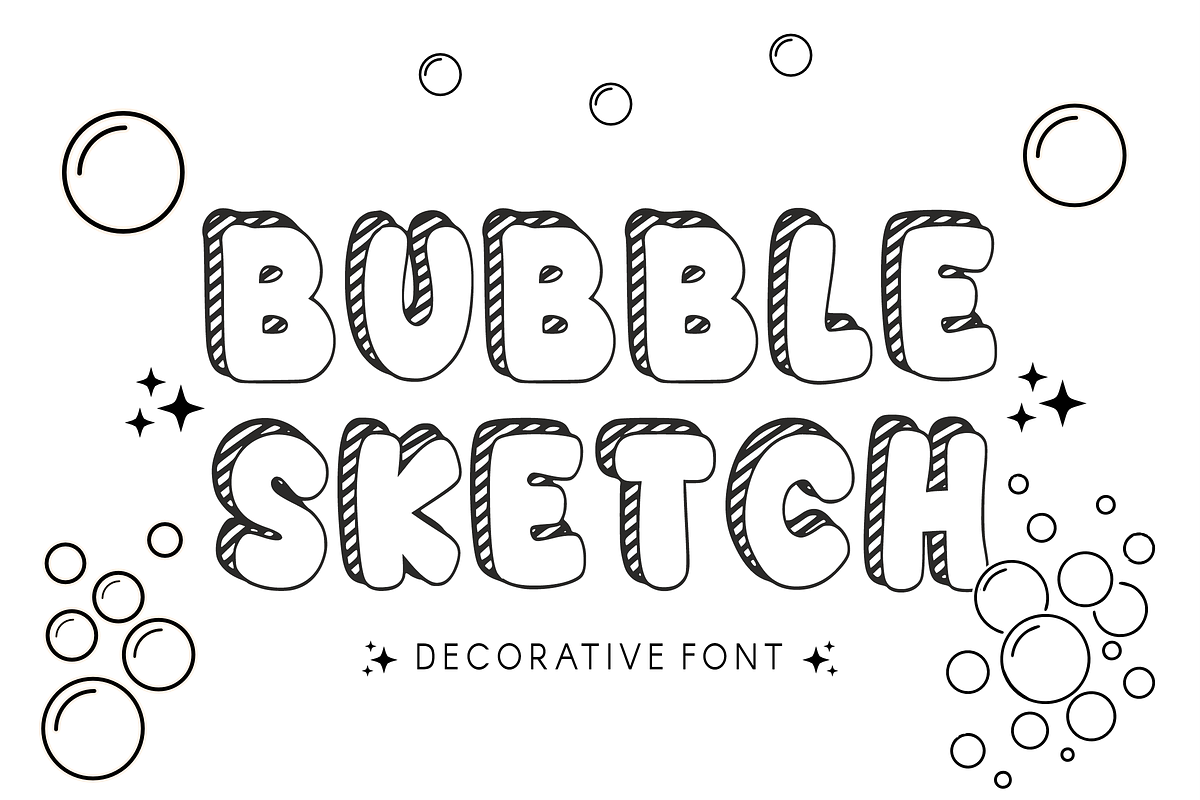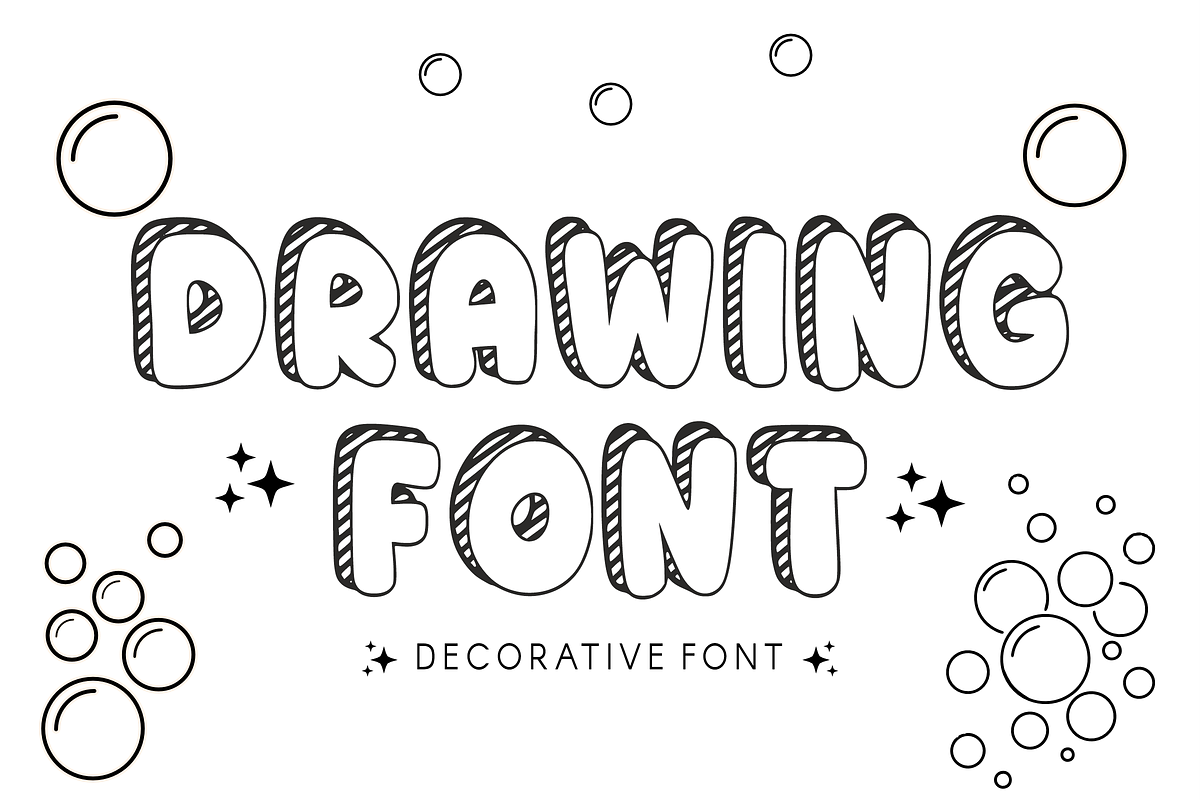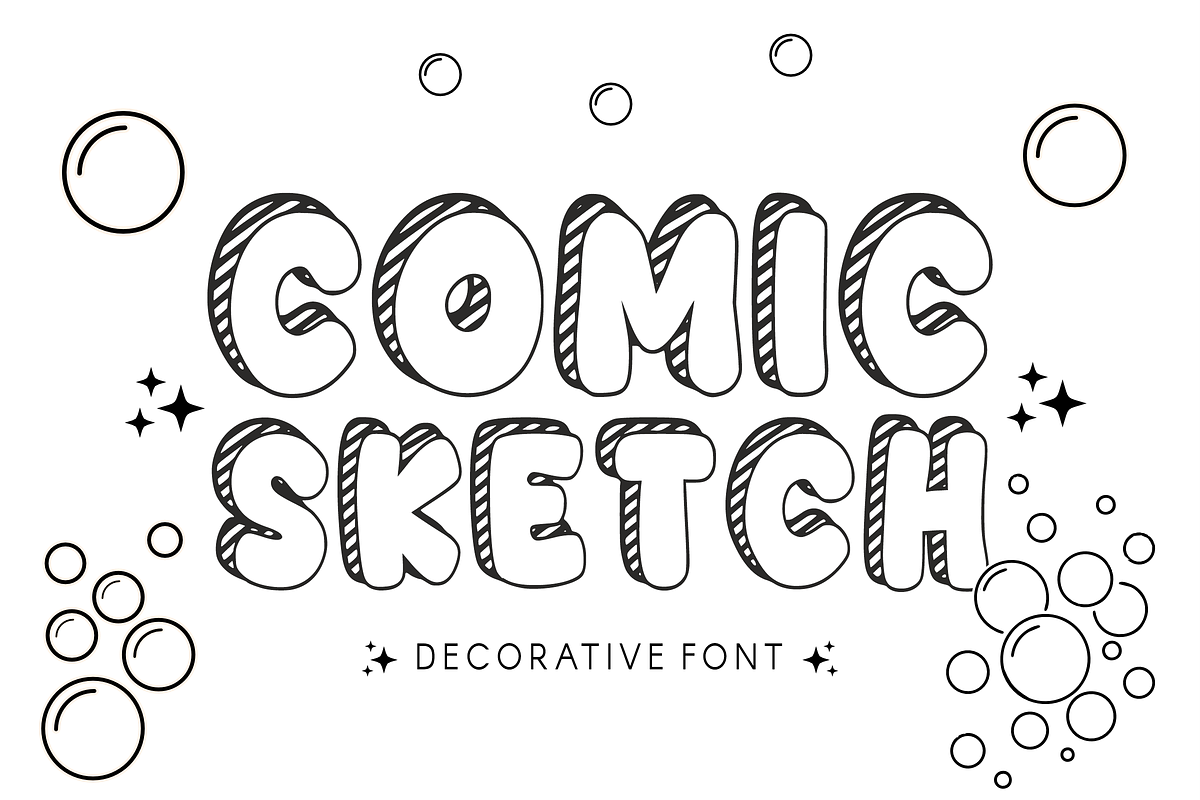
Bubble Sketch - Playful Hand-Draw
Bubble Sketch - Playful Hand-Drawn Display Font Bring a burst of joy and creativity to your designs with Bubble Sketch! This hand-drawn decorative font features a chunky, bubbly aesthetic combined with a unique 3D sketch effect. The diagonal hatching in the shadows gives it a nostalgic comic-book feel that is both energetic and friendly.
Whether you are designing for children’s products, eye-catching posters, or trendy social media graphics, Bubble Sketch is built to stand out. Its bold, rounded forms ensure high readability while maintaining a fun, doodle-like charm.
Uppercase Alphabet: Bold and bubbly letters.